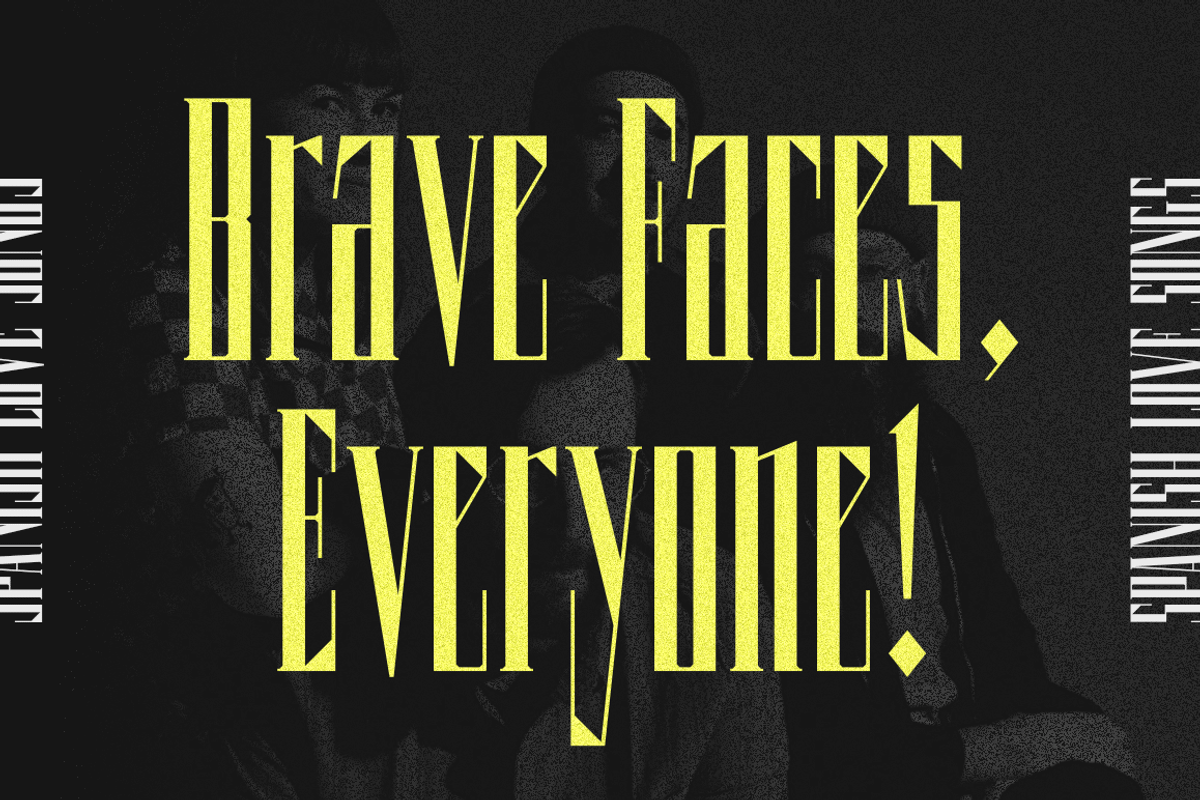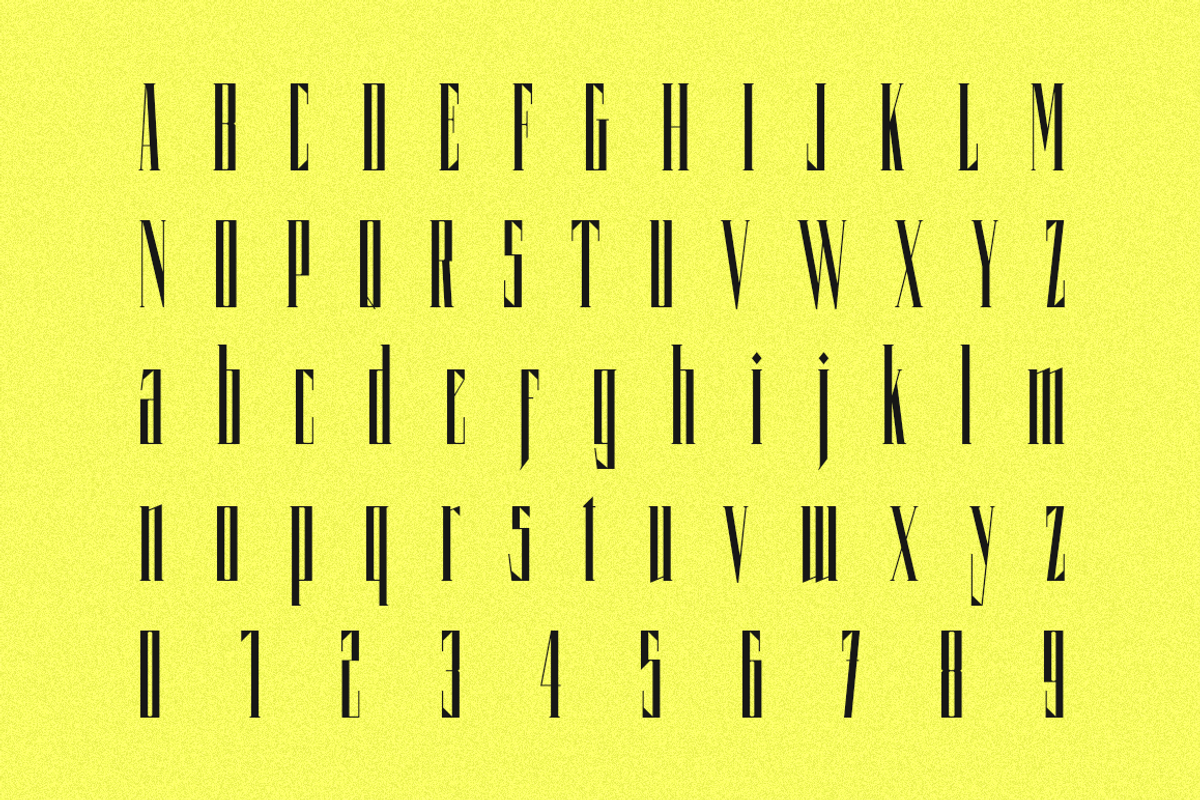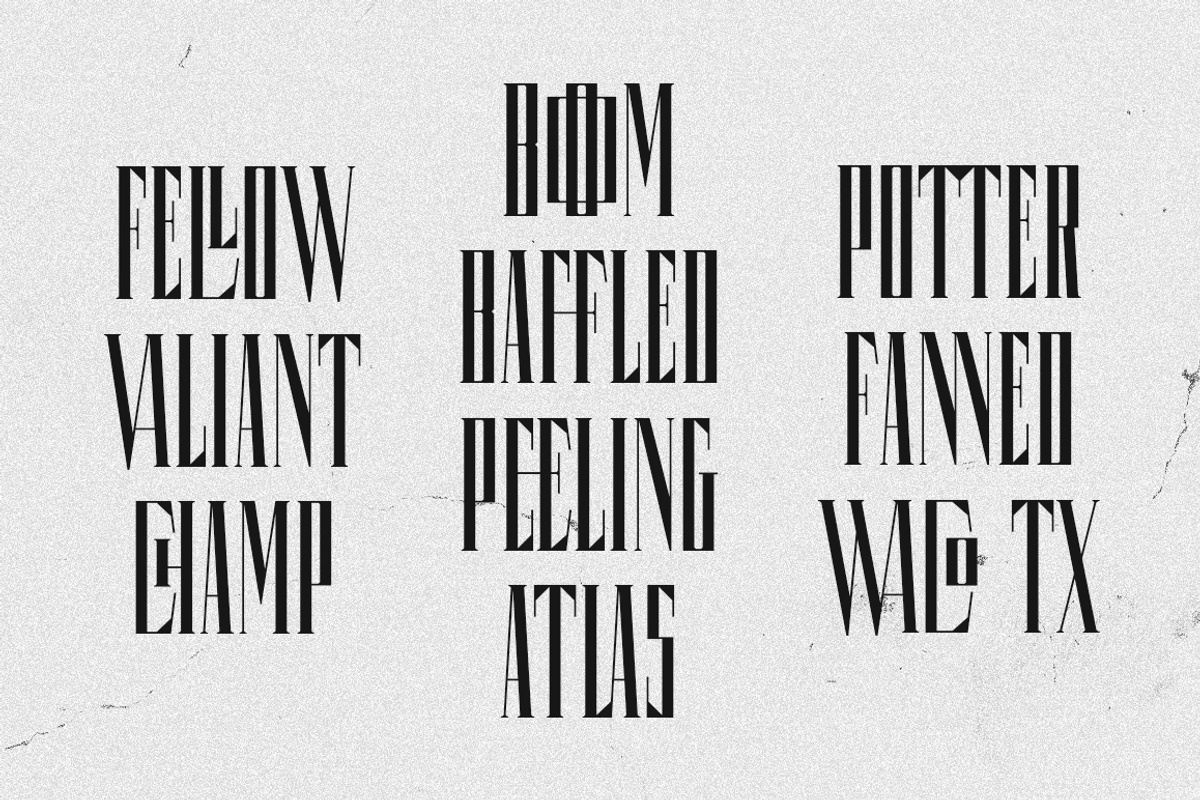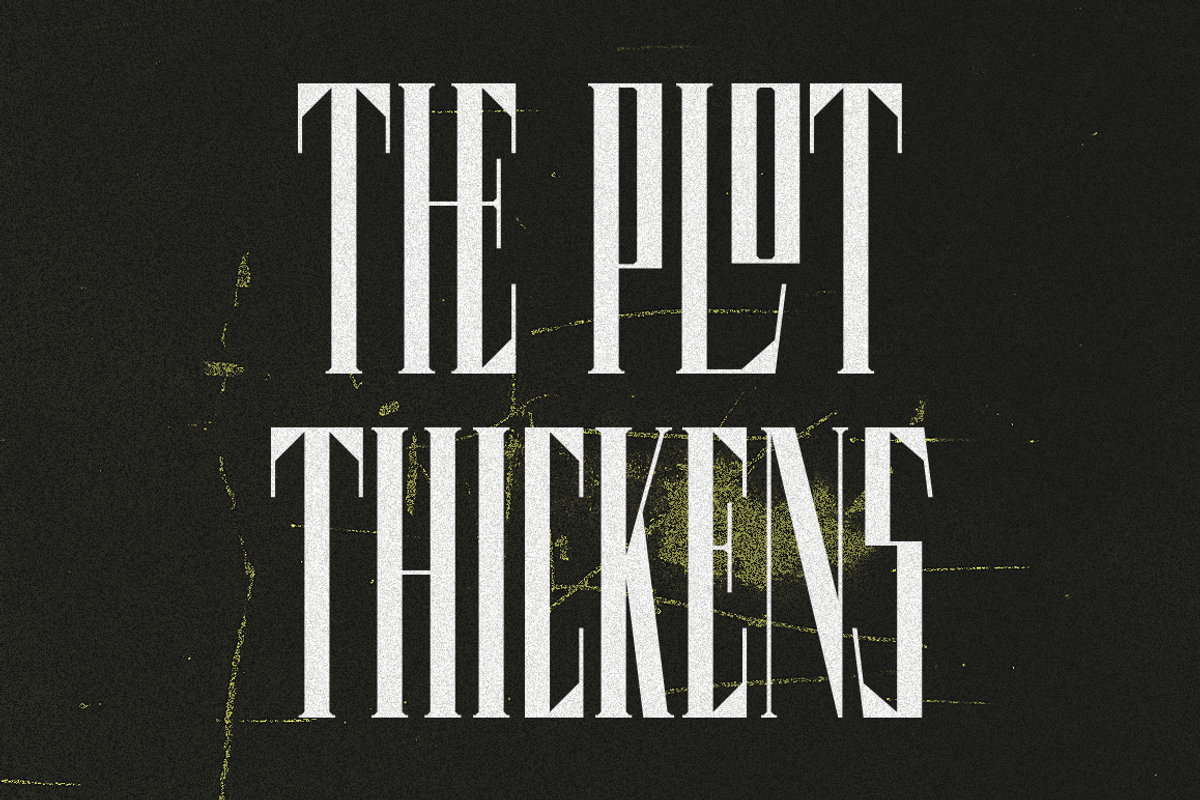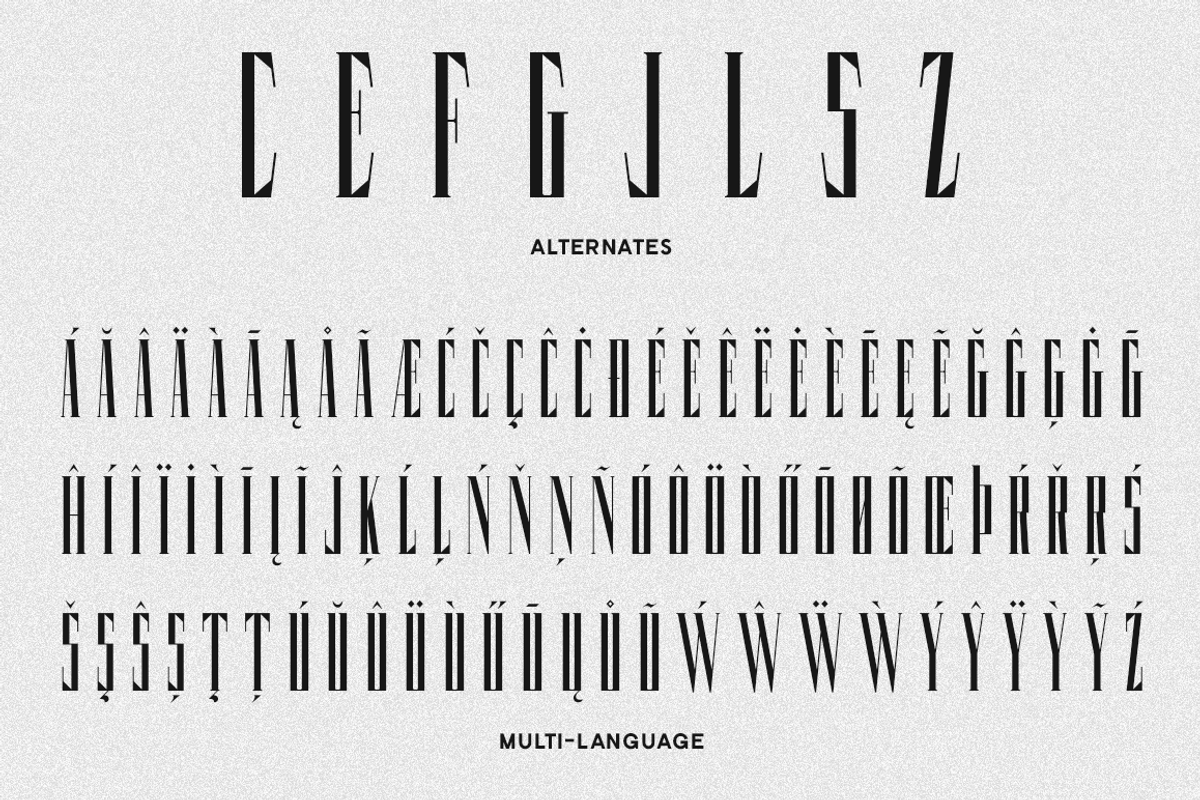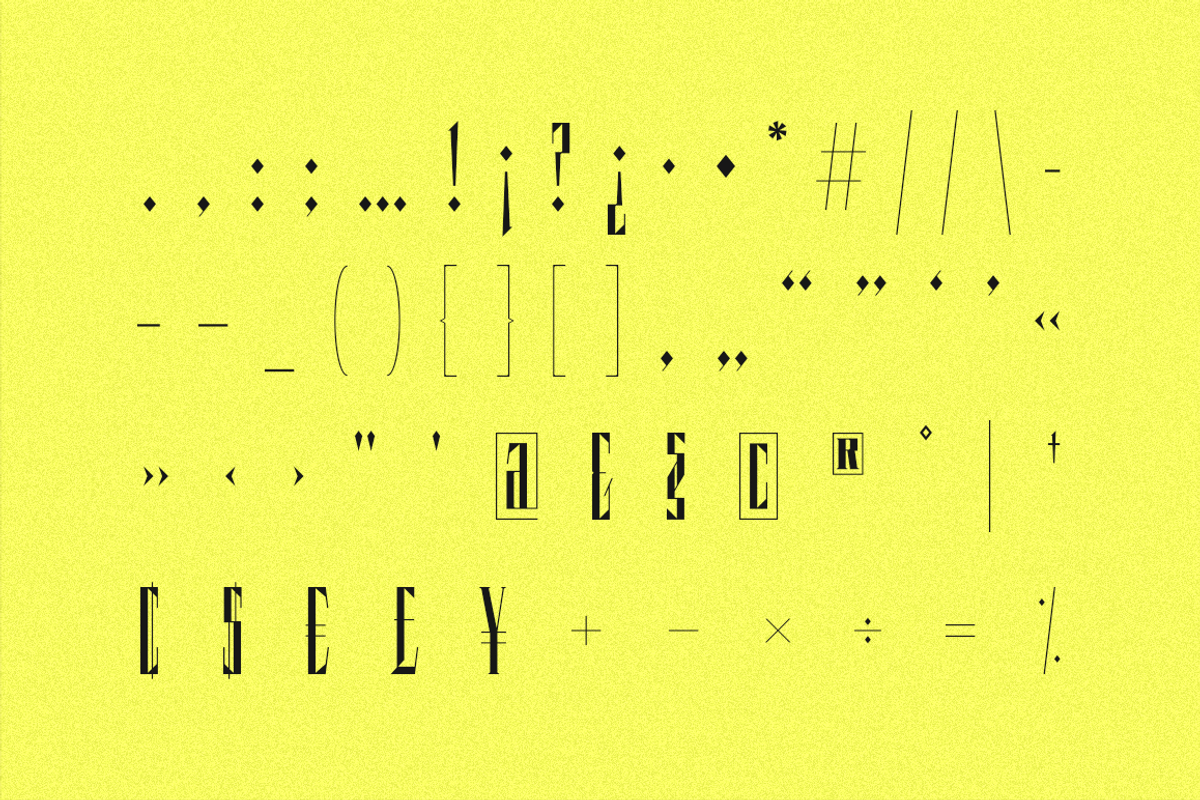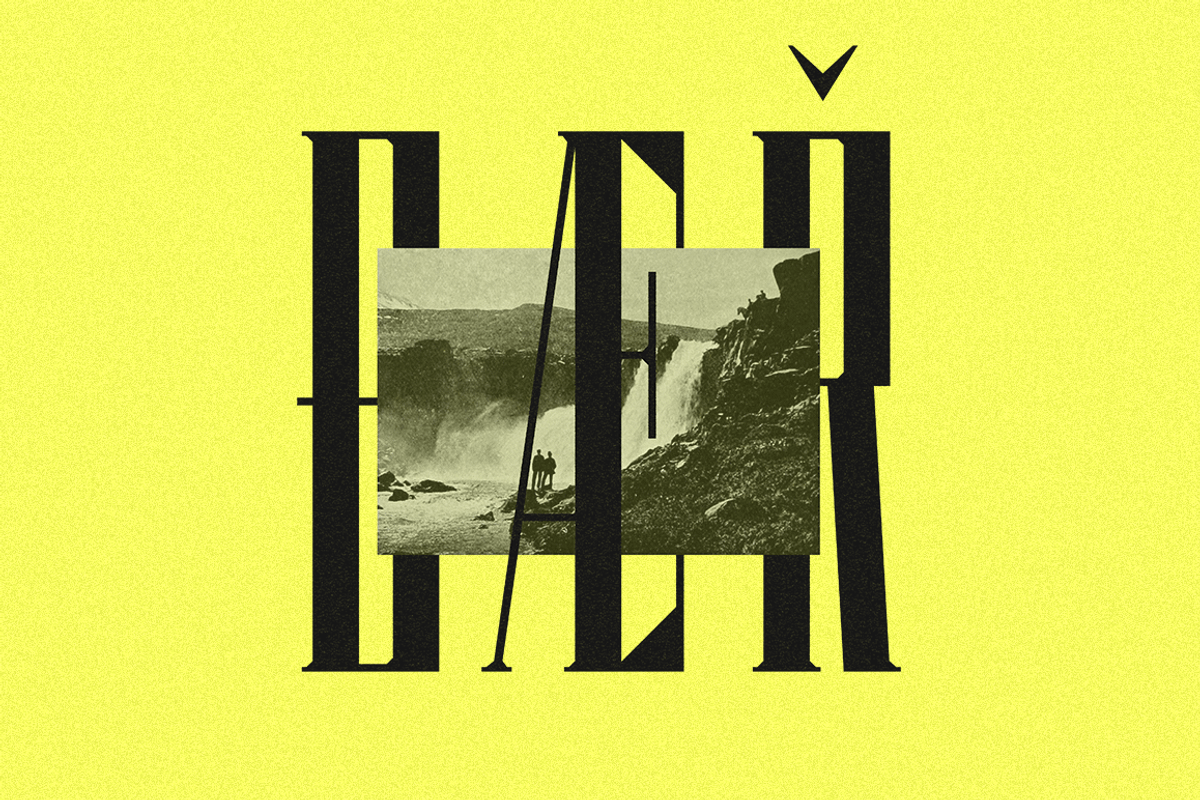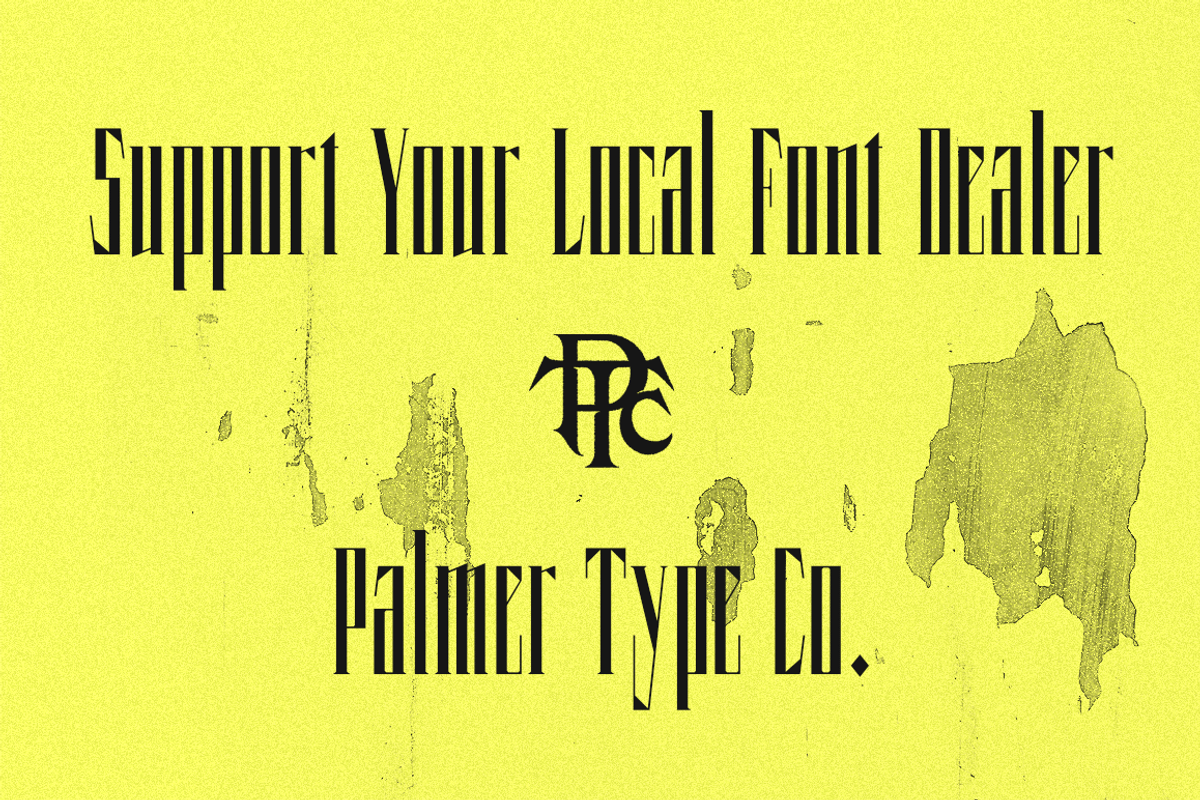
Coppola
Coppola is a brand new typeface that combines a little bit of Didot, a pinch of Art Nouveau, and a dash of Italian mafia.
- A-Z, a-z
- Multi-language support
- Special characters